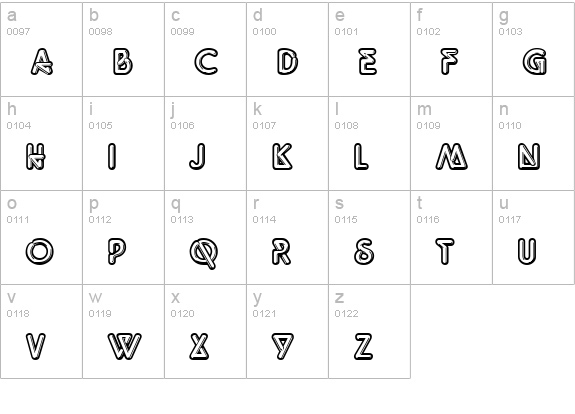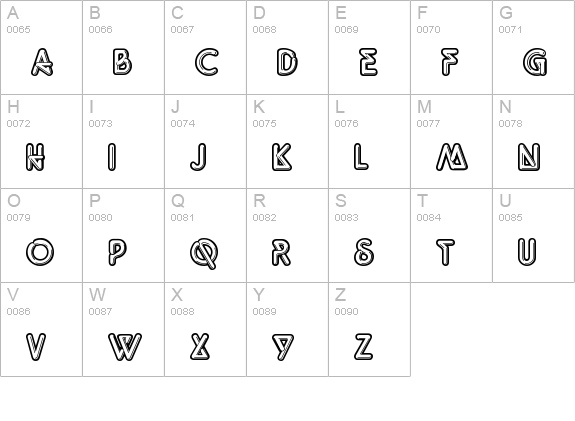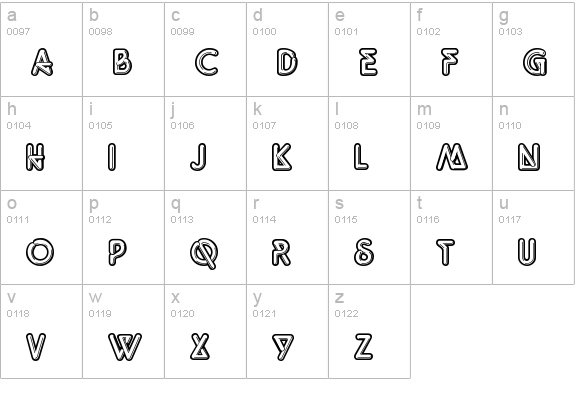
The GE Neon Lights font is a vibrant and eye-catching typeface that captures the essence of glowing neon signs. With its sleek and modern design, this font is perfect for adding a touch of retro flair to any project. The neon-inspired letterforms are bold and dynamic, making them ideal for headlines, logos, and other display text. Best of all, the GE Neon Lights font is available for free download at FontsMarket.com. Whether you're working on a poster, website, or branding project, this font is sure to make a statement and grab attention. Bring a touch of neon-inspired style to your designs with this versatile and striking typeface.